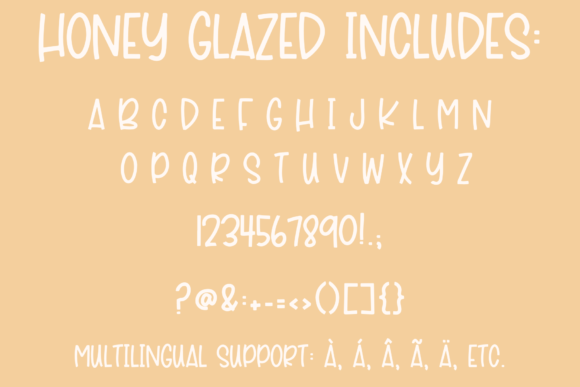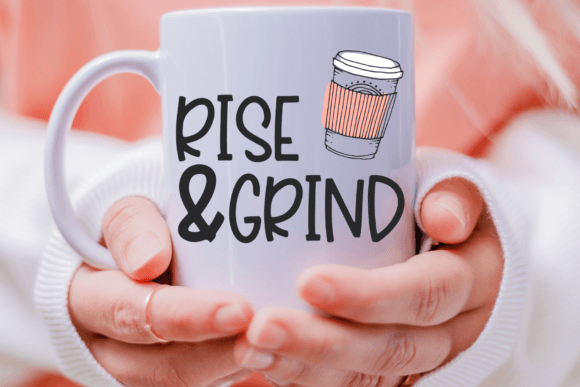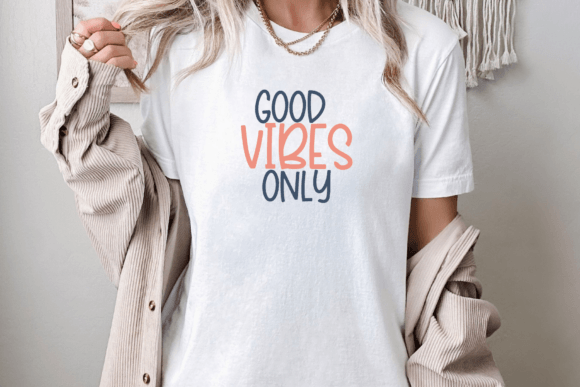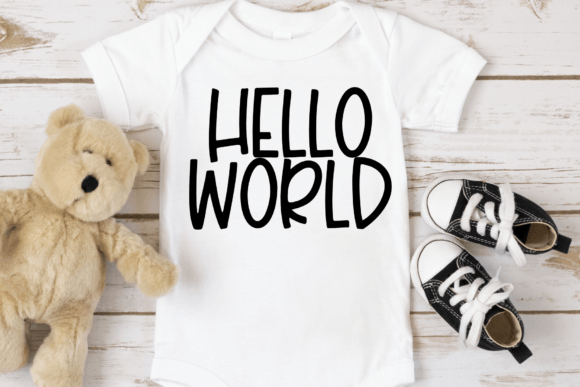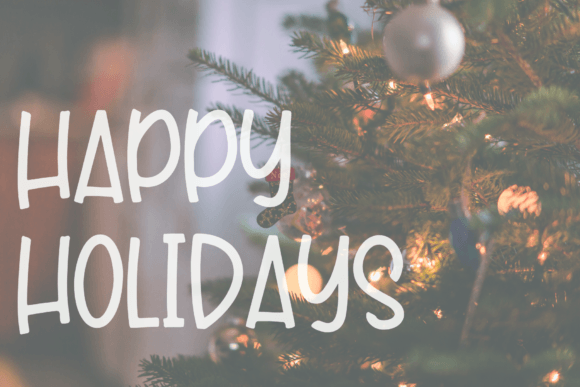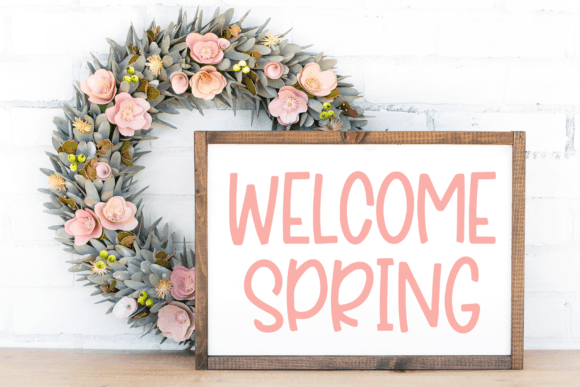
Introduction to Honey Glazed Font
Honey Glazed is an all-caps, quirky handwritten font.
This cute font is perfect for fun logos, greeting cards, t-shirt designs, stickers, social media, and any craft or project for that hand-made look .